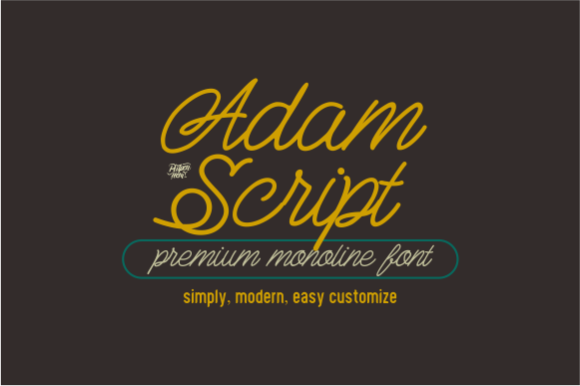
Adam Script: A Timeless Font for Modern Creativity
In a world where visual identity is more important than ever, choosing the right font can make all the difference. Adam Script stands out as a unique blend of elegance and flexibility, offering designers, creators, and professionals a tool that feels both classic and contemporary. This monoline script font has quickly become a favorite among those who value aesthetics without sacrificing readability or versatility.
Adam Script is not just another font—it’s a statement. Its clean lines and graceful curves give it an air of sophistication, while its friendly tone makes it approachable. Whether you're designing a logo, crafting a website, or creating marketing materials, Adam Script offers a balance between professionalism and personality that few fonts can match.
The Evolution of Script Fonts in Design
Script fonts have long been associated with elegance and handwritten charm. However, traditional script fonts often come with challenges—such as poor legibility at smaller sizes or a lack of flexibility in different design contexts. Adam Script addresses these issues by combining the best elements of classic script typography with modern design principles.
As digital design continues to evolve, so do user expectations. Today’s audiences demand content that is not only visually appealing but also easy to read and adaptable across various platforms. Adam Script meets this need by maintaining clarity even when used in smaller sizes or on screens with lower resolution. It's a font that bridges the gap between tradition and innovation, making it a smart choice for any designer looking to stay ahead of the curve.
Why Adam Script Fits into Modern Trends
Modern design trends emphasize minimalism, functionality, and user experience. Adam Script aligns perfectly with these values. Its monoline structure ensures consistency and simplicity, which are key components of modern aesthetics. At the same time, the font's friendly feel adds warmth and character, making it ideal for branding, editorial design, and web interfaces.
Practical Implications for Designers and Businesses
For designers, Adam Script opens up new creative possibilities. It can be used to create logos that feel both professional and personable, or to add a touch of elegance to websites, social media posts, and print materials. The font’s flexibility allows it to be customized in ways that suit different projects, from minimalist layouts to more intricate compositions.
Businesses, too, can benefit from using Adam Script. In today’s competitive market, standing out is crucial. A well-designed brand identity can significantly impact customer perception and loyalty. By incorporating Adam Script into their visual strategy, businesses can convey a sense of refinement and approachability that resonates with a broad audience.
For example, a boutique clothing brand might use Adam Script for its website header and product tags to create a cohesive and stylish look. Similarly, a lifestyle blog could use the font in its headlines and call-to-action buttons to enhance readability and engagement.
Adam Script in Everyday Use
Beyond professional design applications, Adam Script can be a valuable tool for everyday users. Bloggers, educators, and hobbyists can use it to create visually appealing content that captures attention and encourages interaction. Its friendly tone makes it especially well-suited for educational materials, where clarity and approachability are essential.
Freelancers and entrepreneurs can also leverage Adam Script to build a strong personal brand. Whether it's in email signatures, business cards, or promotional materials, the font helps convey a sense of professionalism while remaining relatable and engaging.
Real-World Examples and Recommendations
Consider a small coffee shop looking to refresh its branding. Using Adam Script for its signage and packaging can help create a warm, inviting atmosphere that appeals to customers. The font’s classic style gives the brand a timeless feel, while its friendly characteristics make it feel welcoming and accessible.
Another example is a personal trainer who wants to build a strong online presence. Incorporating Adam Script into their website and social media profiles can help them stand out in a crowded market. The font’s elegant yet approachable nature makes it perfect for conveying both authority and approachability.
If you're considering using Adam Script, start by experimenting with it in different contexts. Try pairing it with sans-serif fonts for contrast, or use it sparingly to maintain readability. Remember, the goal is to enhance your message—not overshadow it.
Whether you're a seasoned designer or just starting out, Adam Script offers a compelling combination of elegance, flexibility, and functionality. Its ability to adapt to different needs and contexts makes it a valuable addition to any creative toolkit. As the design landscape continues to evolve, Adam Script stands as a testament to the enduring power of thoughtful typography.